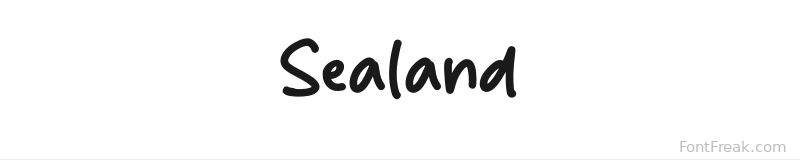
Sealand
About Sealand
Sealand, designed by MJType, is a captivating handwritten font that exudes a charming, casual elegance perfect for various creative projects. This font features a playful yet refined style, characterized by its smooth, organic strokes and a friendly demeanor. The moderate stroke weight offers a balanced contrast that enhances legibility while maintaining a relaxed appearance. Its generous spacing allows for easy reading, making it ideal for both digital and print applications.
One of the standout features of Sealand is its versatility. This font is particularly well-suited for wedding invitations, where its romantic flair can elevate the overall design. Additionally, it works wonderfully for restaurant menus, providing a warm and inviting touch that resonates with patrons. Graphic designers will find it perfect for branding projects, allowing small businesses to create a unique identity that stands out in a crowded marketplace. Furthermore, content creators can utilize Sealand for social media graphics, giving their posts a distinctive and engaging look.
The target audience for Sealand includes graphic designers, small business owners, and content creators who seek a font that combines style with functionality. This font's friendly aesthetic appeals to those looking to convey a sense of warmth and approachability in their designs.
What sets the Sealand font apart is its ability to blend a casual handwritten feel with professional quality, making it a fantastic choice for a wide range of applications. Its freeware license means that anyone can enjoy the benefits of this beautiful font without the constraints of cost, making the Sealand font free download an attractive option for creatives everywhere. With its unique characteristics and versatility, Sealand is sure to inspire and enhance your next project.